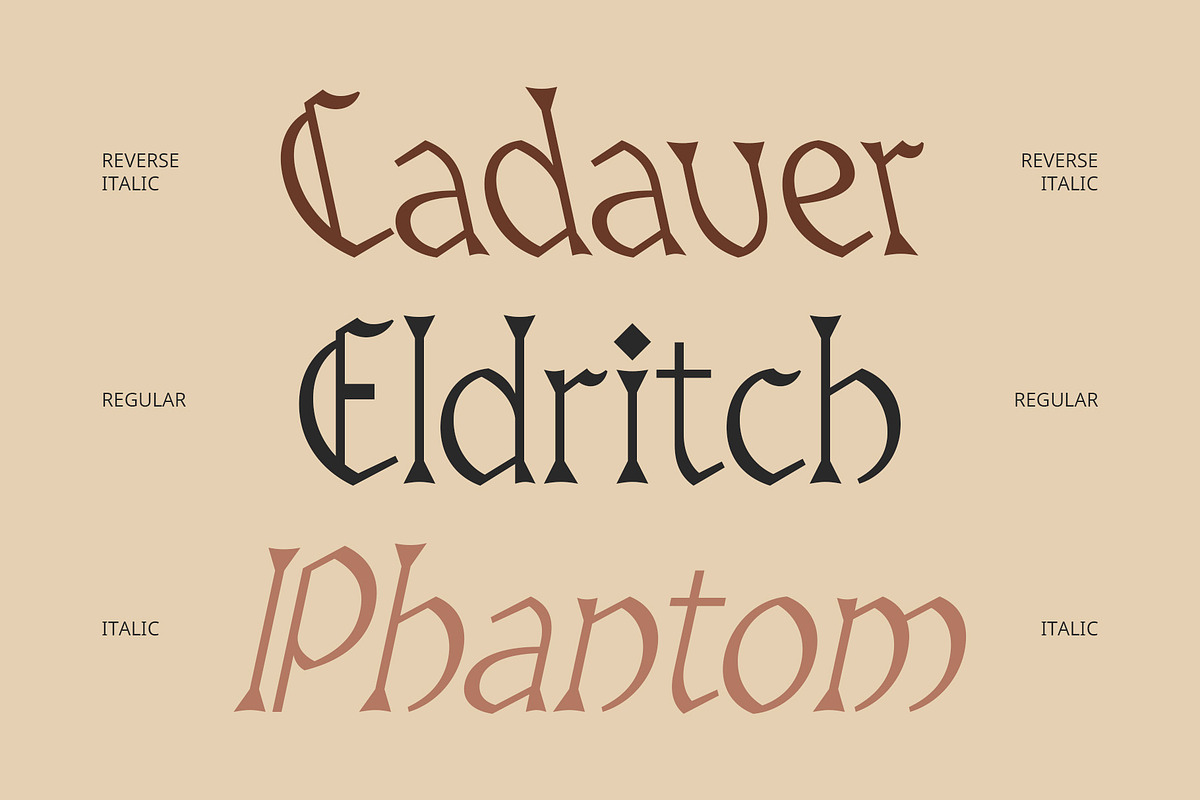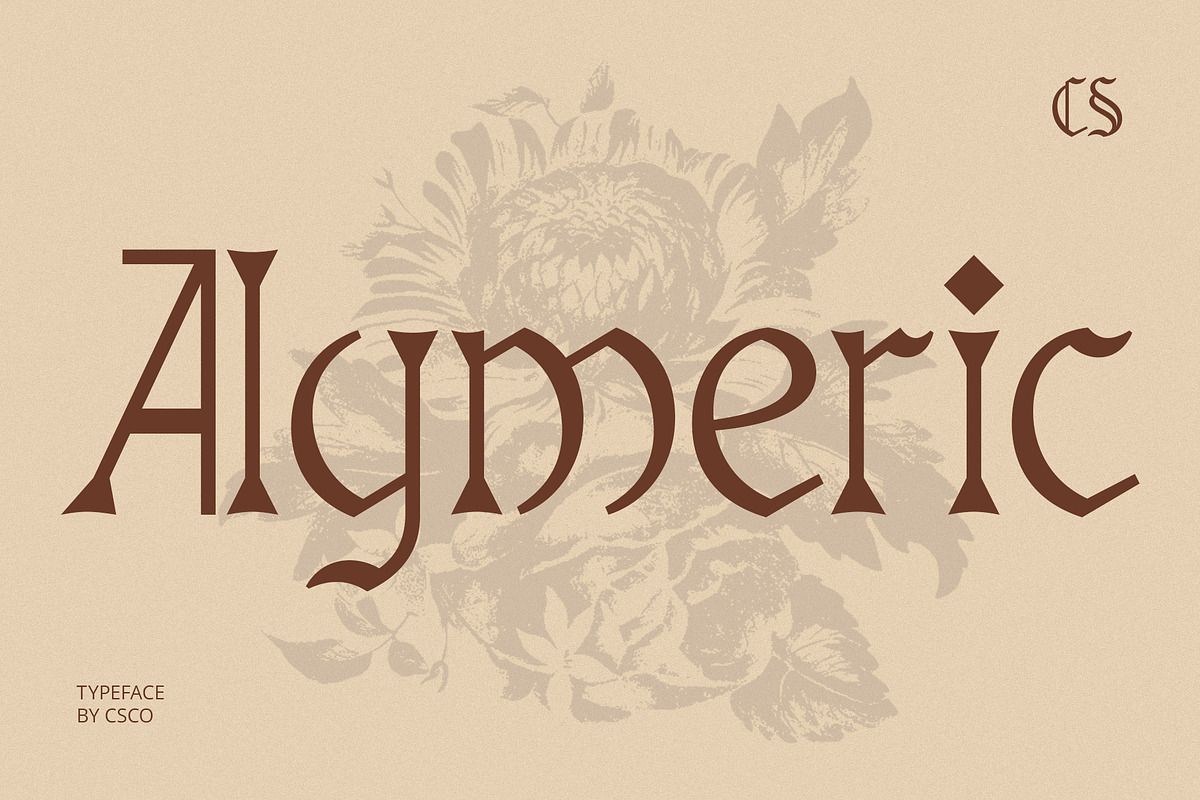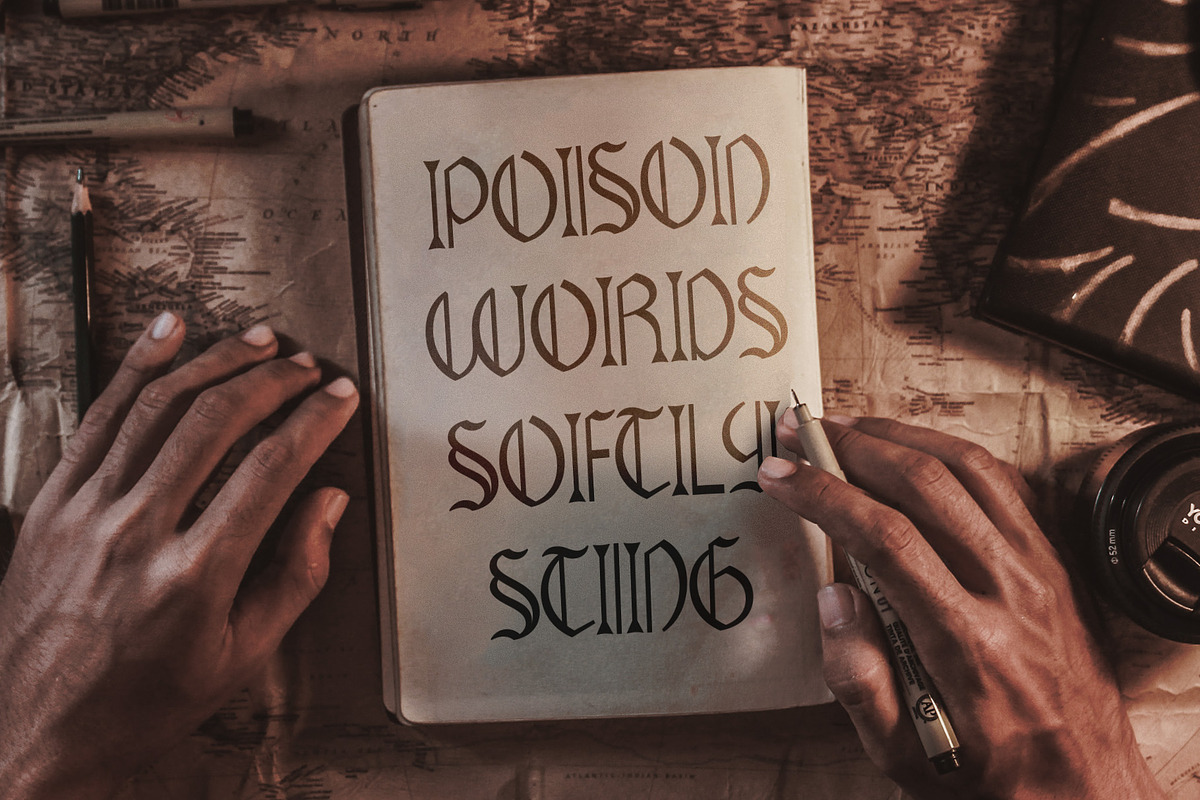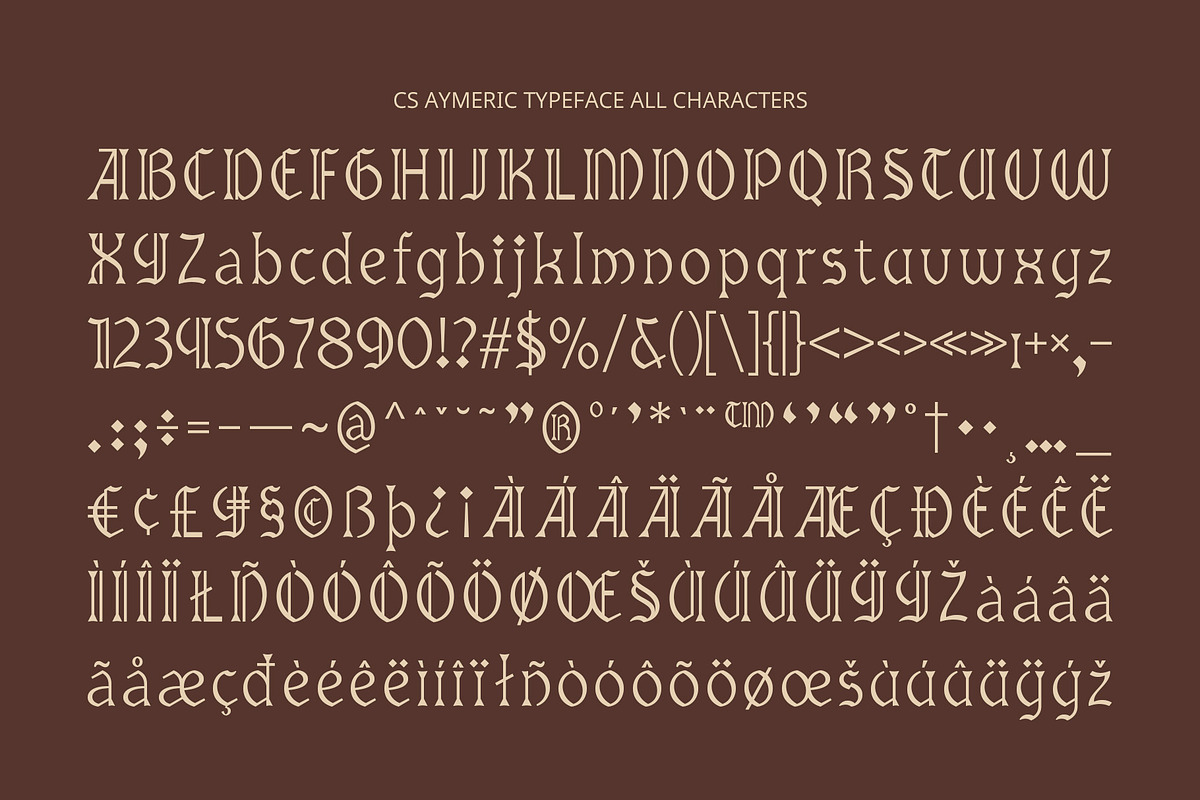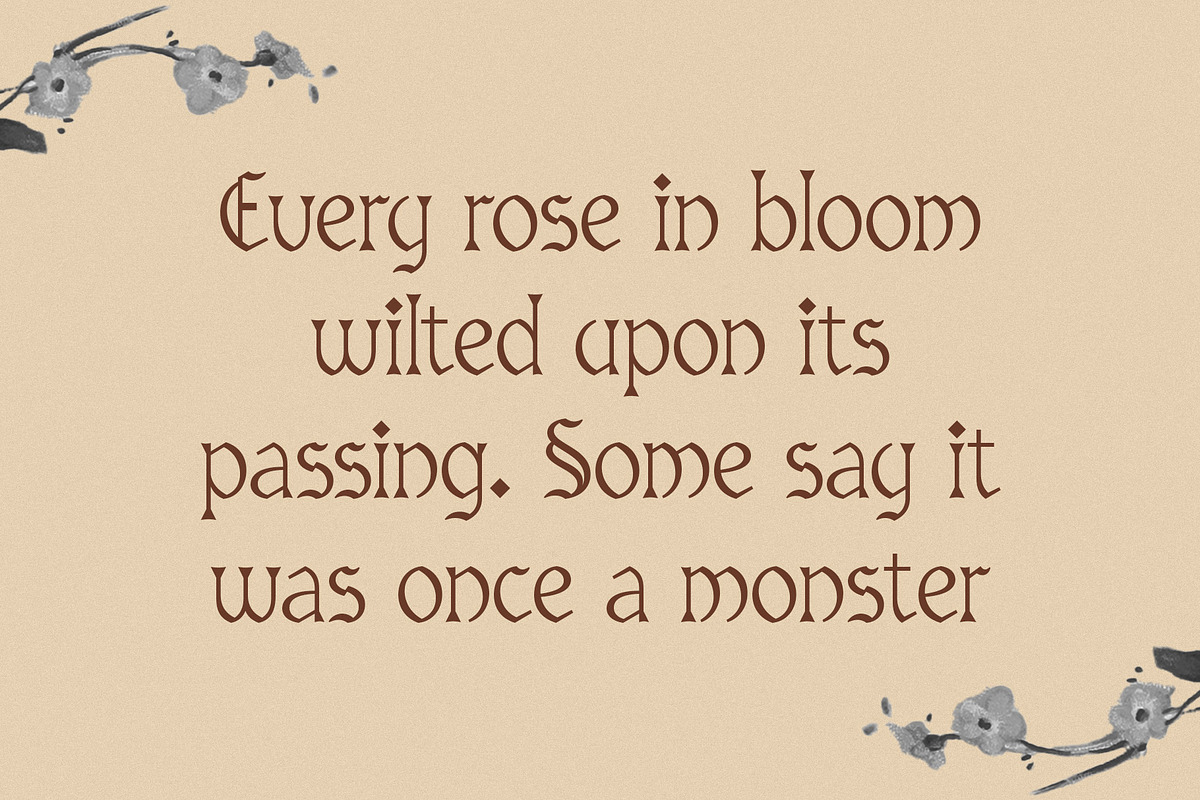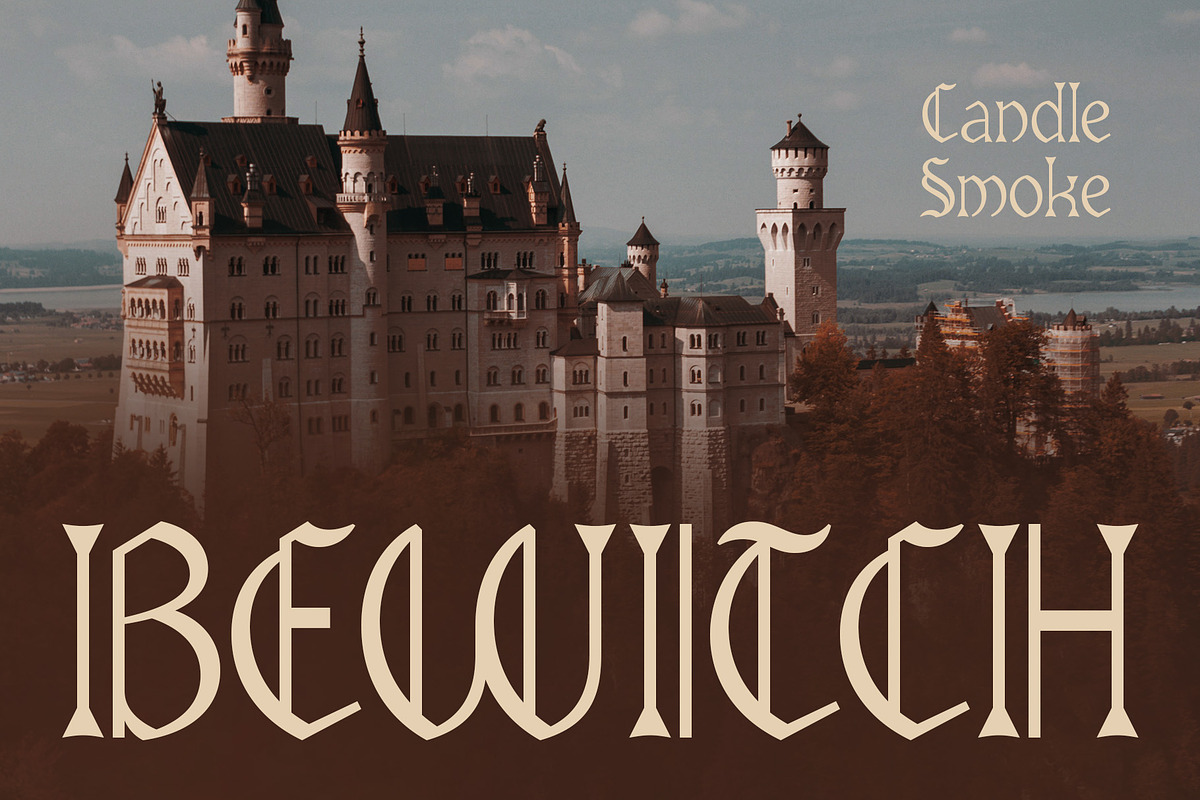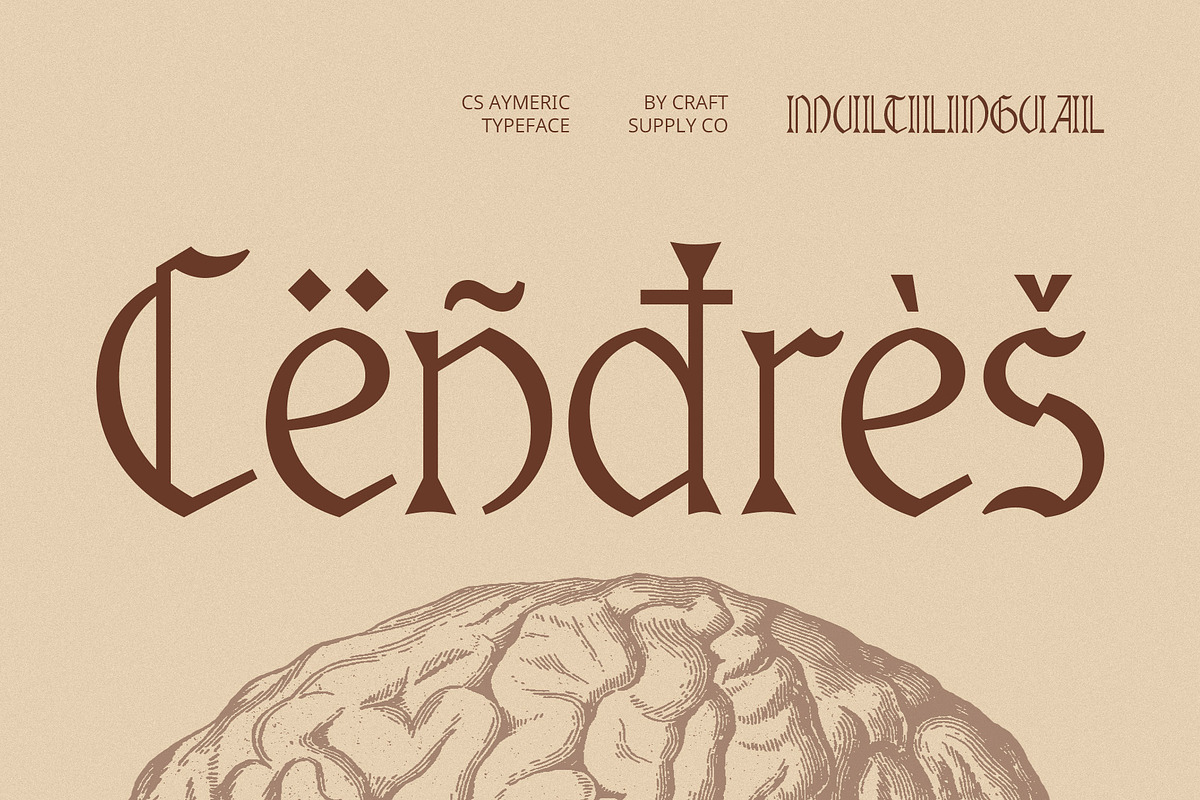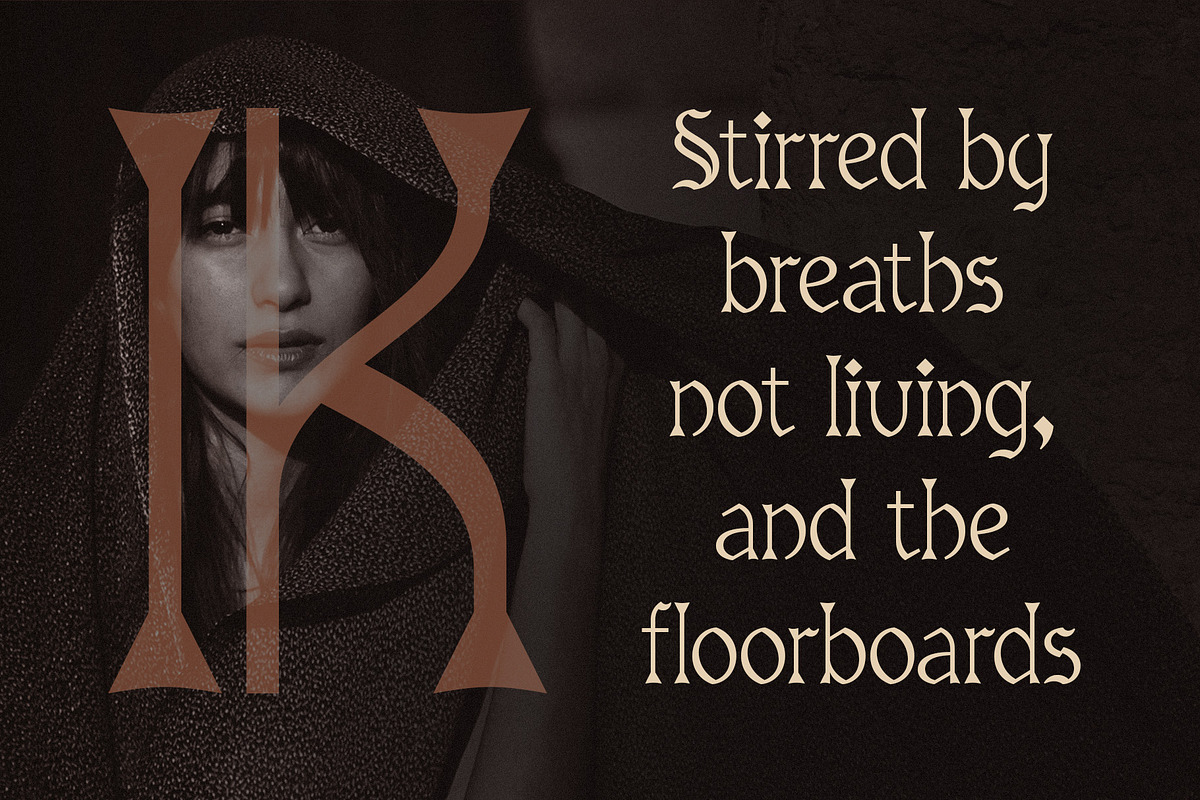
CS Aymeric – Gothic Font
CS Aymeric – Gothic Font: Timeless Drama with Refined Elegance
Elegant Gothic Structure with Slender Forms CS Aymeric is a display font inspired by classic Gothic lettering, showcasing tall, narrow forms and sharp, decorative details. Its vertical rhythm and dramatic proportions evoke a refined yet commanding appearance—perfect for delivering striking headlines or titles with historical flair. The design maintains a strong structure while adding an artistic twist that sets it apart in modern usage.
Dramatic Yet Refined Visual Presence The font’s sharp, pointed details and elongated forms create a sophisticated and intense visual experience. It captures the mystique and grandeur often associated with medieval scripts while maintaining readability and grace. This refined balance gives CS Aymeric a commanding presence in any layout.
Perfect for Artistic and Historical Themes Designed with cultural and creative depth in mind, CS Aymeric is ideal for projects that evoke emotion and narrative. Use it for book covers, theater posters, historical fiction titles, or editorial spreads that demand a classic yet captivating typeface.
Bold Identity with Lasting Impact CS Aymeric’s bold personality and historical elegance make it a strong choice for branding projects with a heritage or artistic focus. Whether you’re designing for a modern gallery, a premium publication, or an immersive storytelling brand, this font offers a timeless, gothic sophistication that leaves a lasting impression.